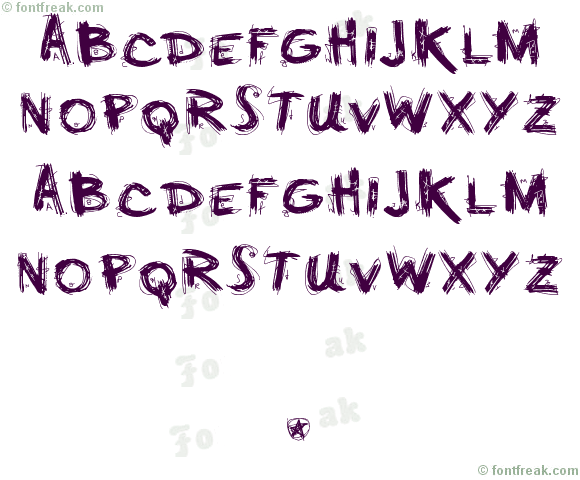
minus
The Minus font, designed by Douglas Vitkauskas in 2005, is a captivating display typeface that showcases a unique blend of artistic flair and readability. As a decorative font, Minus features an unconventional, hand-drawn appearance that exudes a sense of individuality and creativity. The strokes are characterized by their varied weight, providing an intriguing visual rhythm that draws the eye. With its playful, slightly irregular edges and dynamic spacing, this font radiates a casual yet artistic vibe, making it ideal for various graphic design projects.
The Minus font is particularly well-suited for specific applications, including eye-catching wedding invitations that call for a personal touch, vibrant movie posters that aim to grab attention, and trendy restaurant menus that reflect a contemporary atmosphere. Additionally, it can be effectively utilized in branding materials for creative small businesses looking to establish a distinctive identity. Content creators will also find this font useful for social media graphics and promotional materials that require a unique aesthetic.
Targeting graphic designers, small business owners, and content creators alike, the Minus font is a versatile choice that adds a distinct character to any project. Its freeware license allows for easy access and use, making it an appealing option for those looking to enhance their design toolkit without breaking the bank.
What sets the Minus font apart is its ability to convey a sense of spontaneity while remaining legible and engaging. This balance of creativity and functionality makes it an excellent choice for anyone seeking to make a bold statement through typography. Discover the Minus font free download today and elevate your design projects with this distinctive typeface.